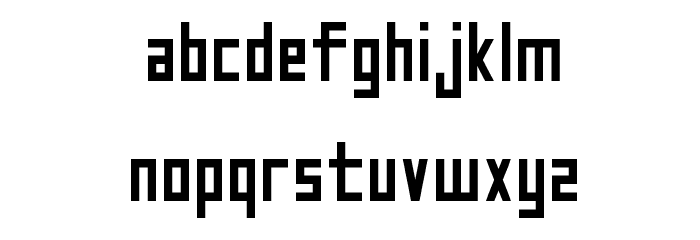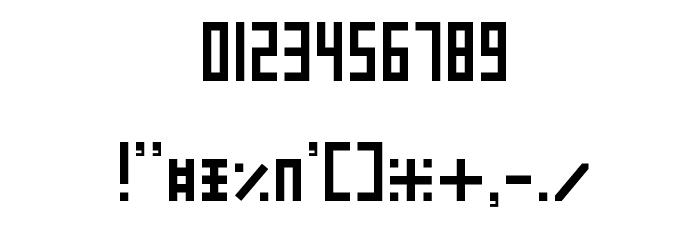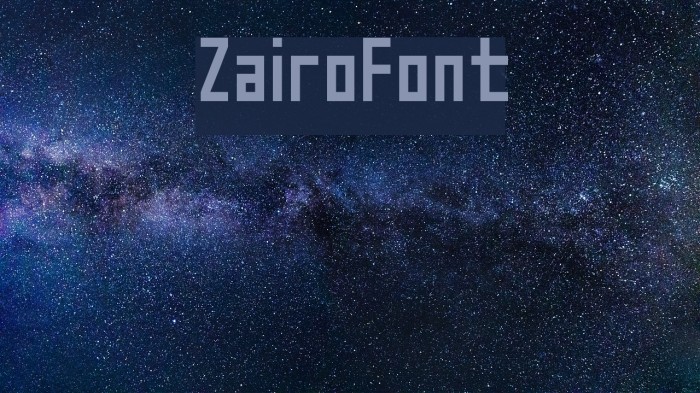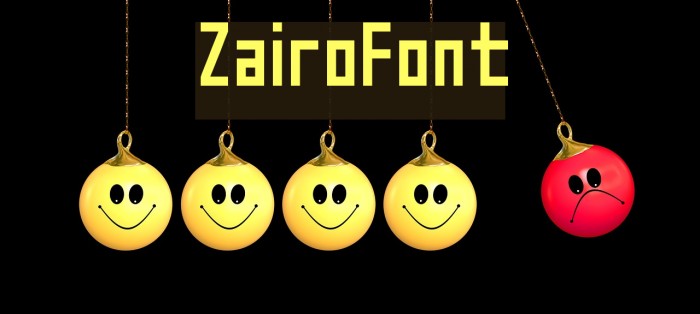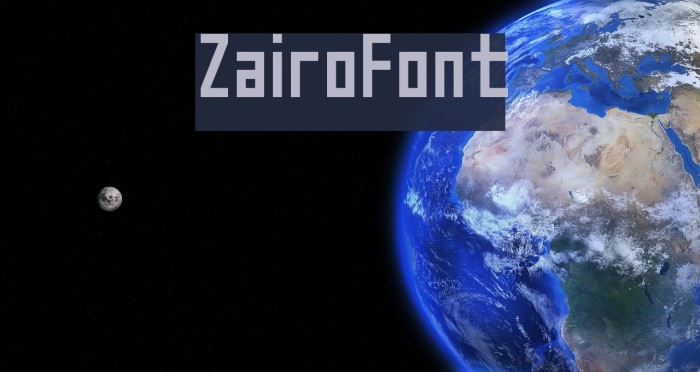
Zairo Font
This font features a bold, geometric design with a modern and futuristic aesthetic. The characters are constructed with straight lines and sharp angles, giving it a digital or tech-inspired look. The uppercase and lowercase letters maintain a consistent height, contributing to a uniform appearance. The numerals and special characters are designed to match the overall style, ensuring cohesion across all elements. This font is highly legible and makes a strong visual impact, suitable for various design applications.
A bold, geometric font with a modern, tech-inspired aesthetic.
- Proposed Projects: Ideal for technology branding, video game titles, futuristic posters, and digital interfaces.